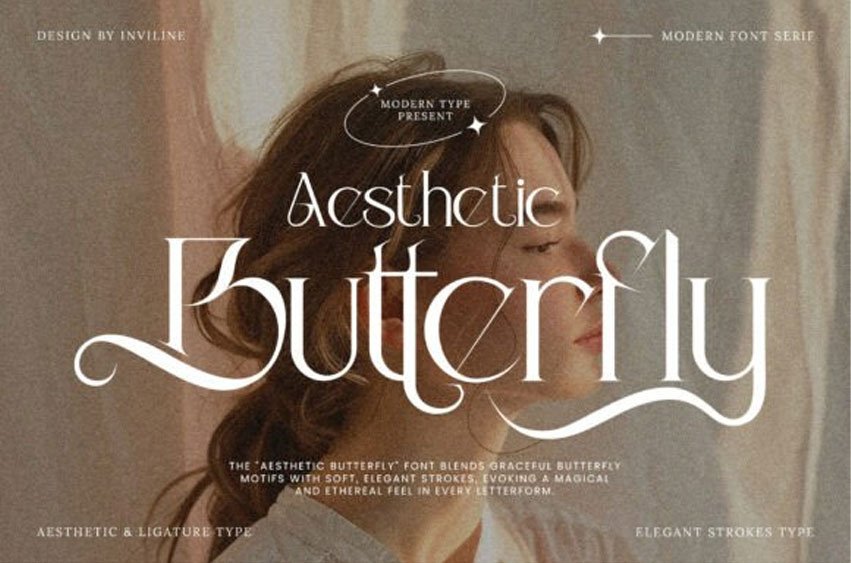
Butterfly Aesthetic Font is a delicate serif typeface inspired by the elegance of butterfly wings. With soft curves, graceful ligatures, and flowing strokes, this font brings a magical and ethereal feeling to any design.
Perfect for wedding invitations, romantic branding, feminine packaging, social media graphics, and editorial layouts. It evokes sophistication, elegance, and a dreamlike presence in every letterform.